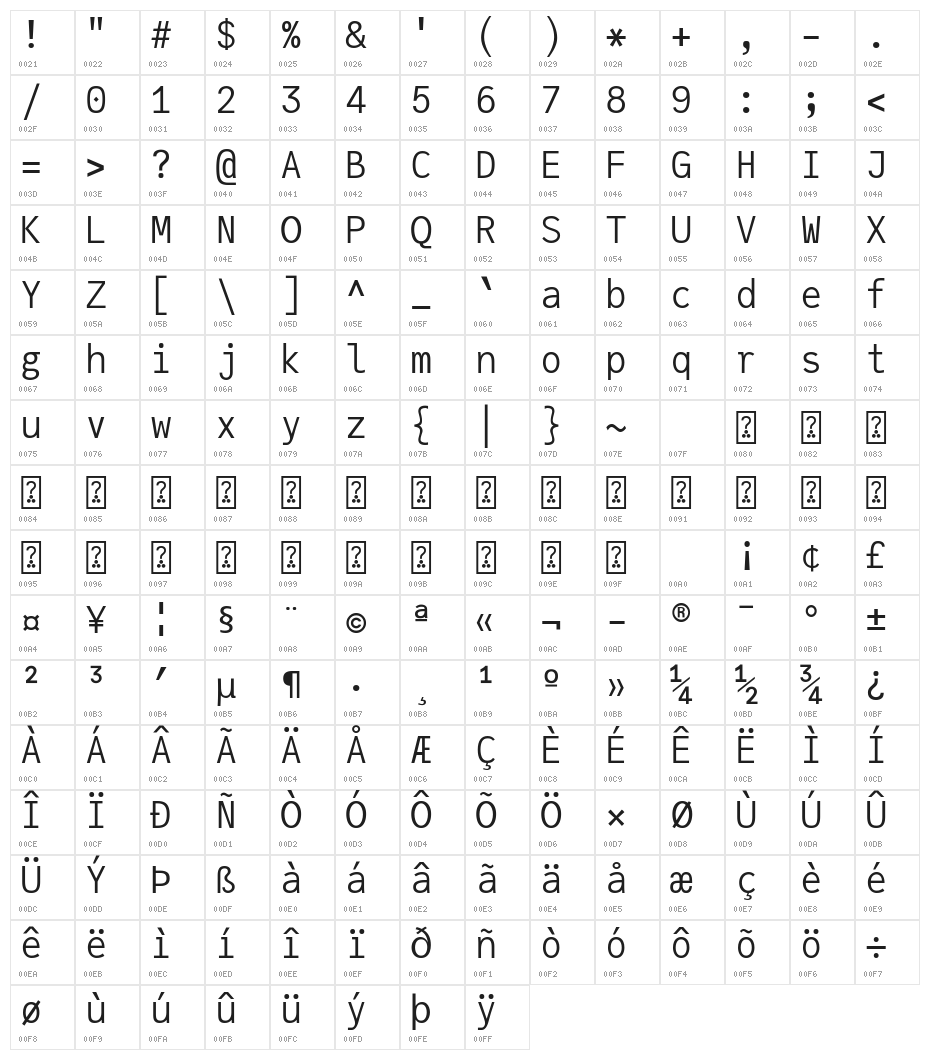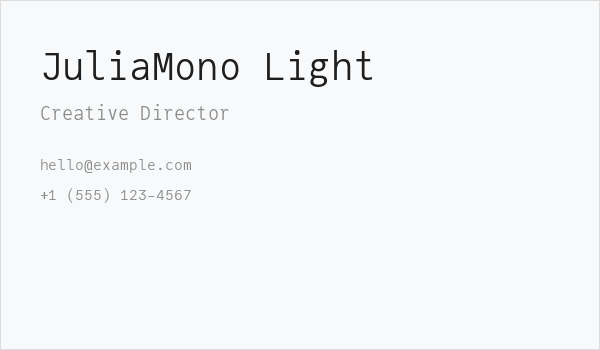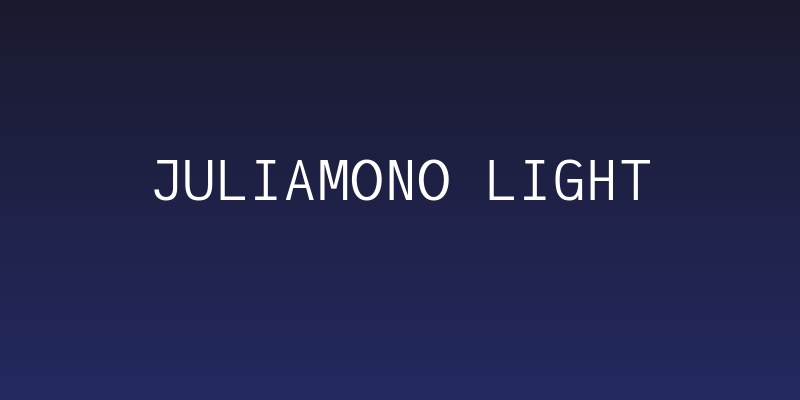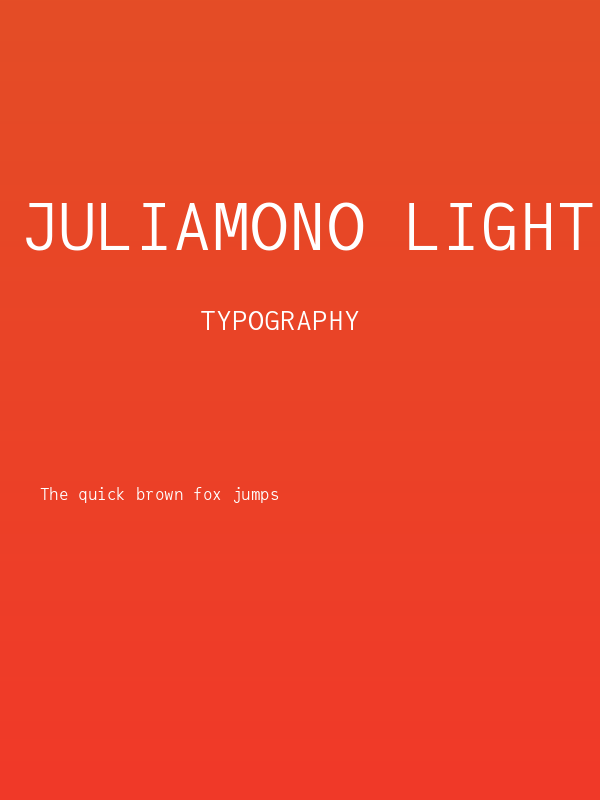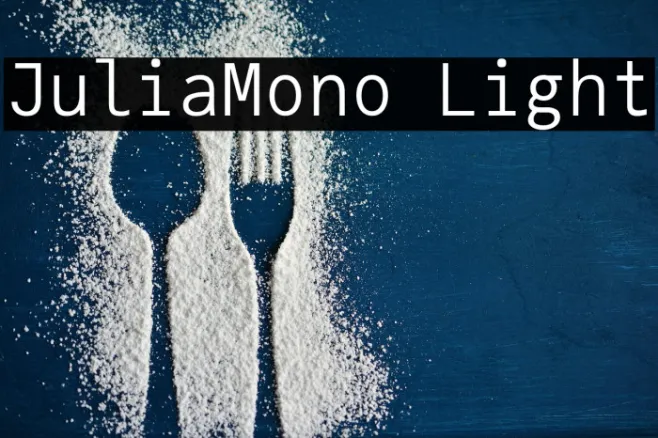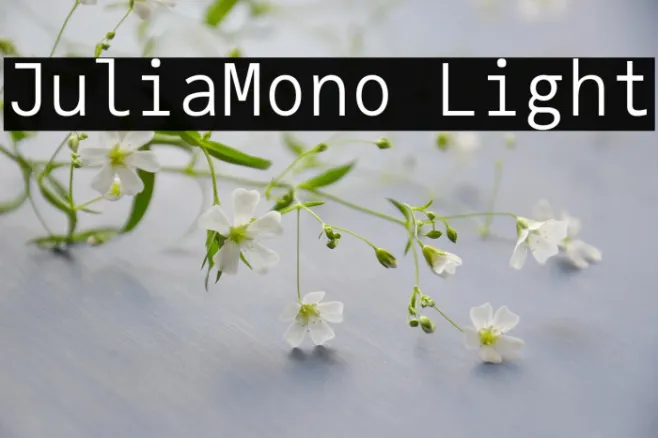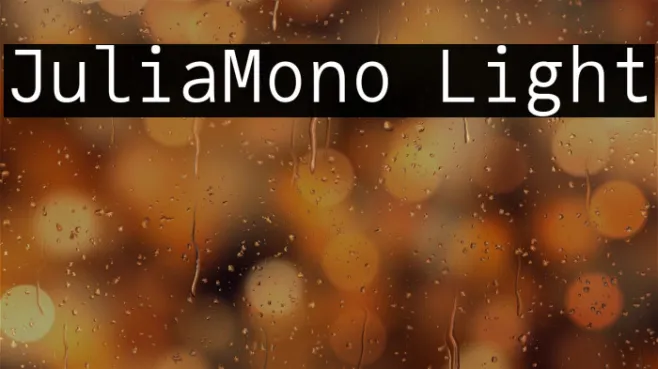
JuliaMono Light Font
JuliaMono Light Description
This typeface features a clean and modern design with monospaced characteristics, making it ideal for coding and technical documentation. The uniformity in character width ensures alignment and readability across various platforms. Its geometric shapes and straight lines give it a contemporary feel, while the light weight adds a touch of elegance. The font maintains clarity even at smaller sizes, making it versatile for both digital and print media. The consistent stroke width and minimal contrast contribute to its straightforward and professional appearance, suitable for users who prefer a no-nonsense, functional typeface.
| Use Case | Coding, Technical documentation, Data tables |
| Proposed Projects | Perfect for coding environments, technical documentation, data tables, and any project requiring precise alignment. |